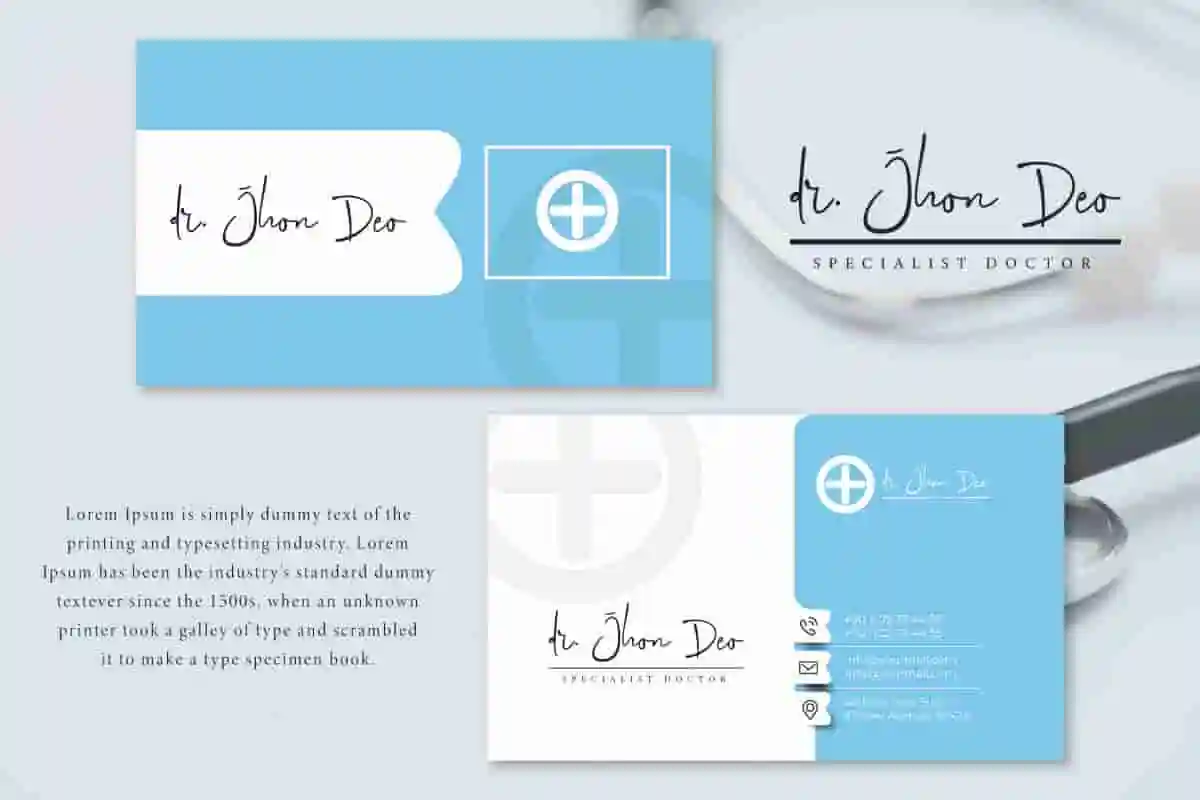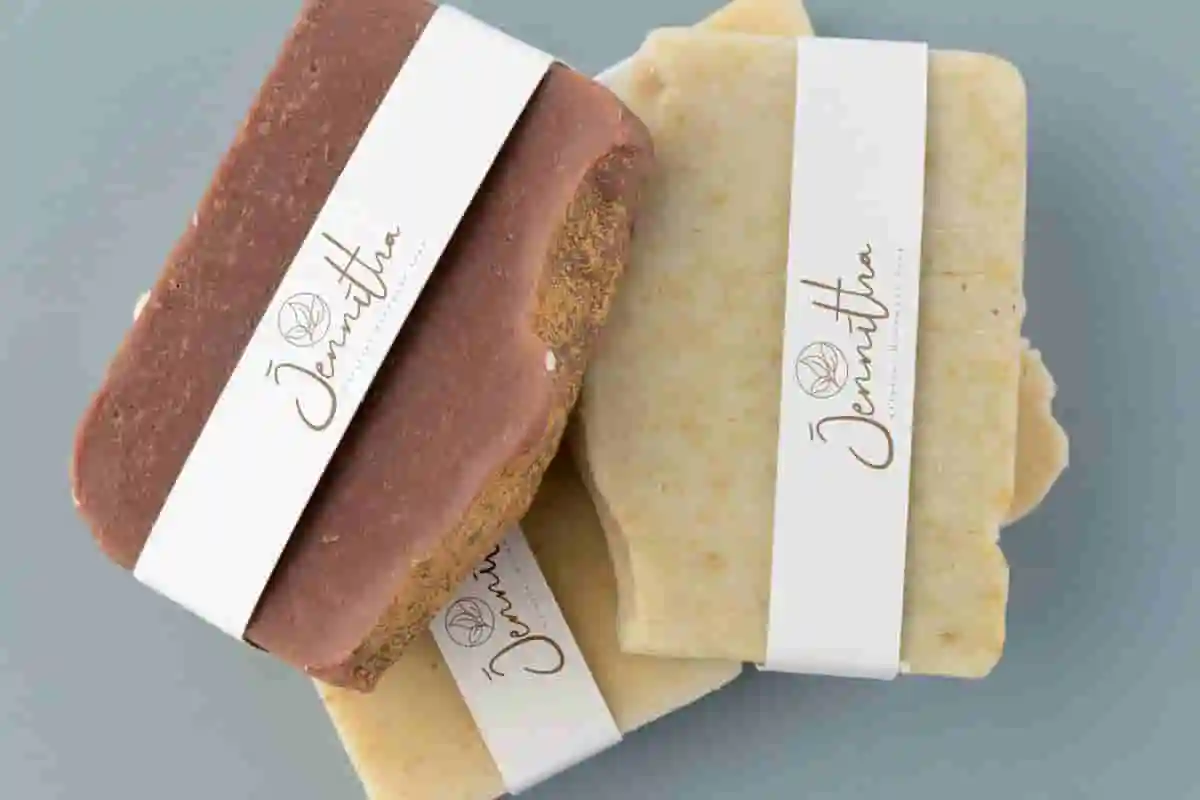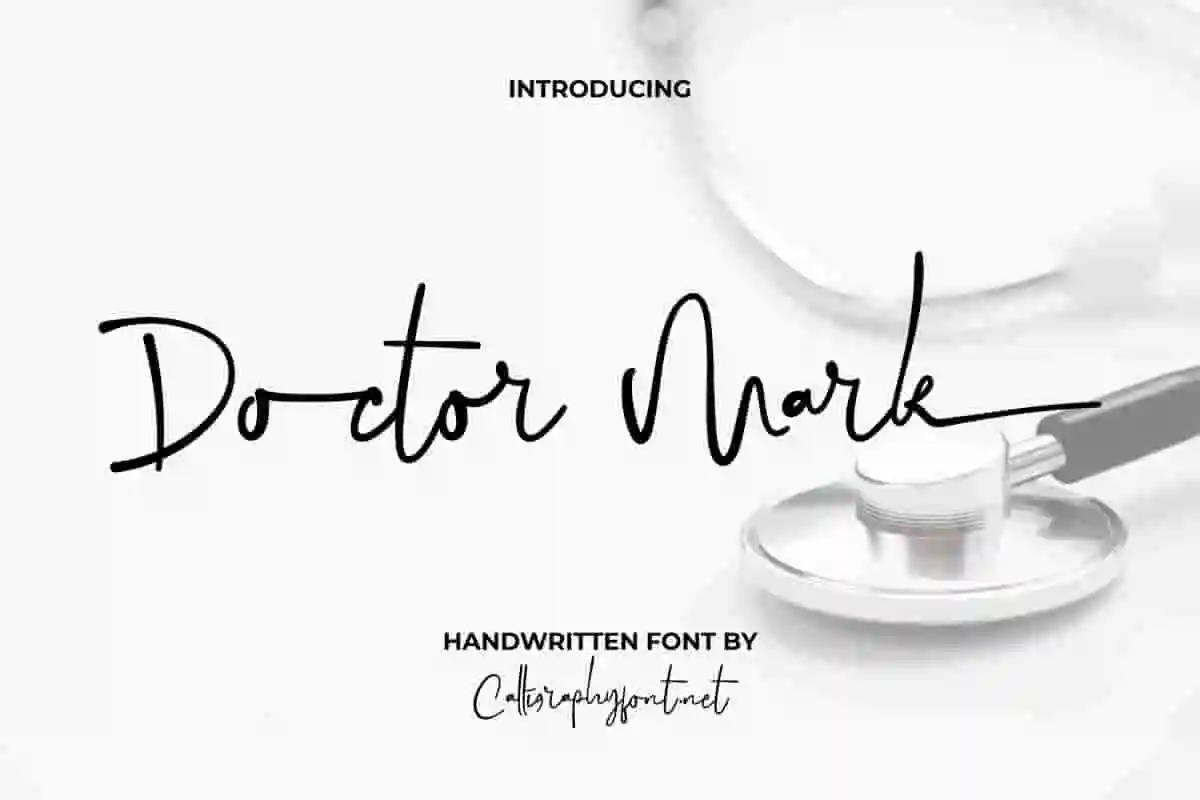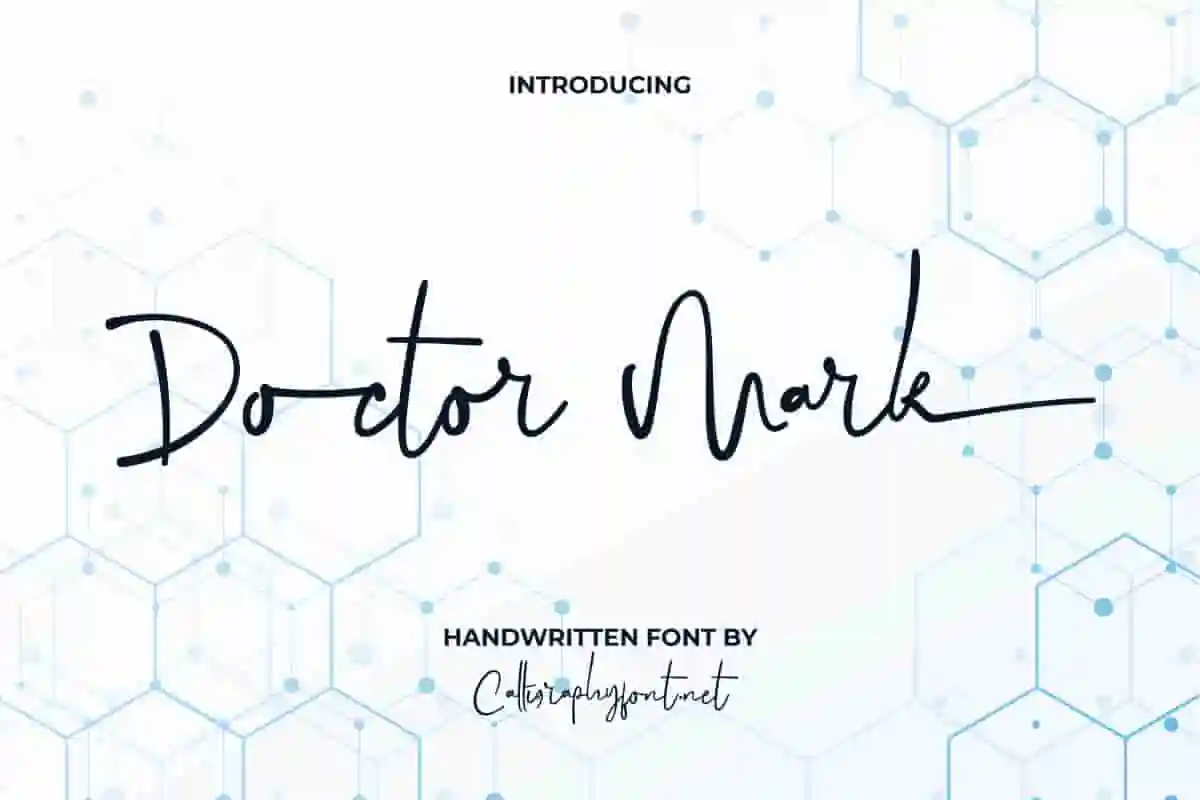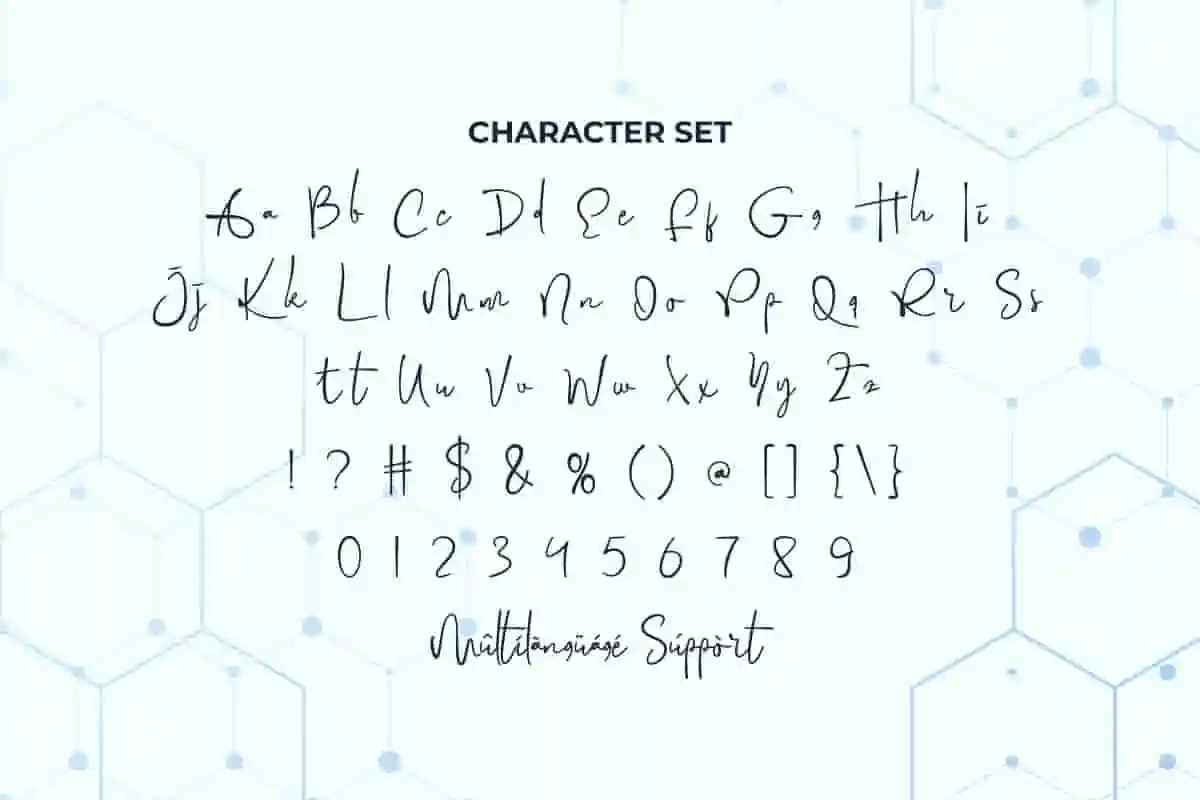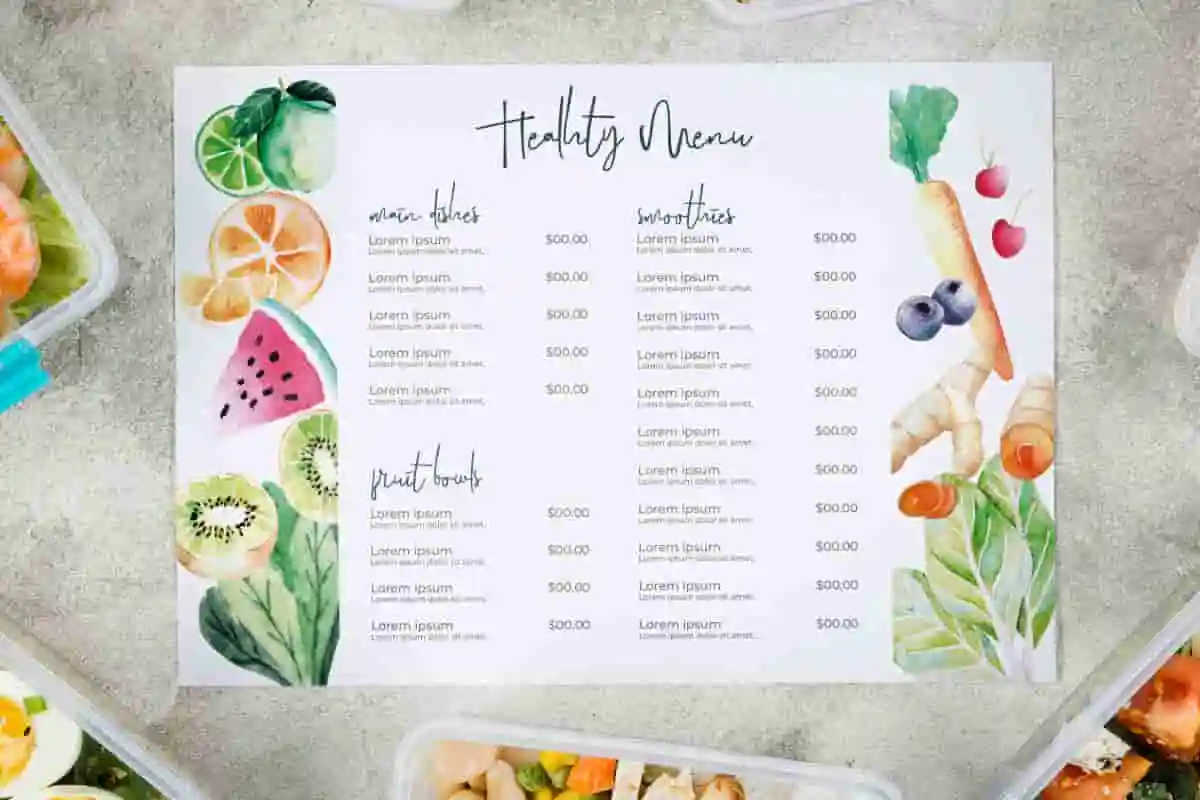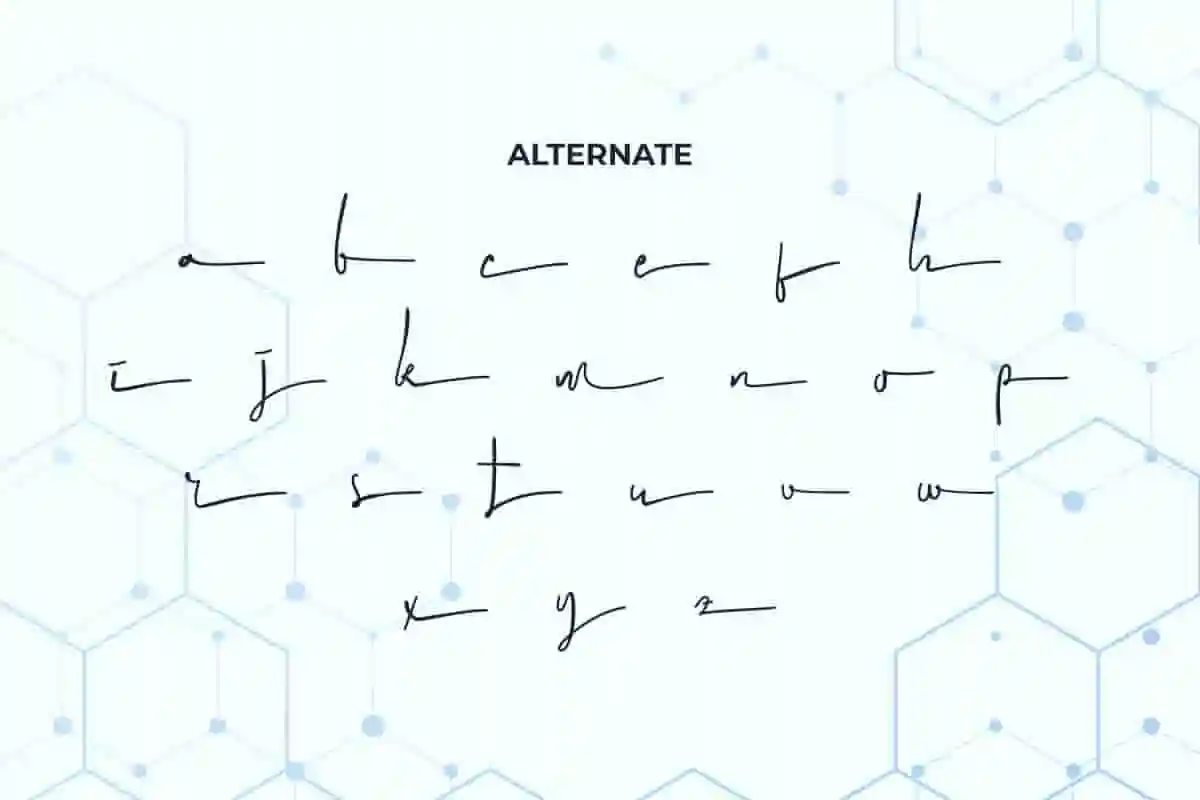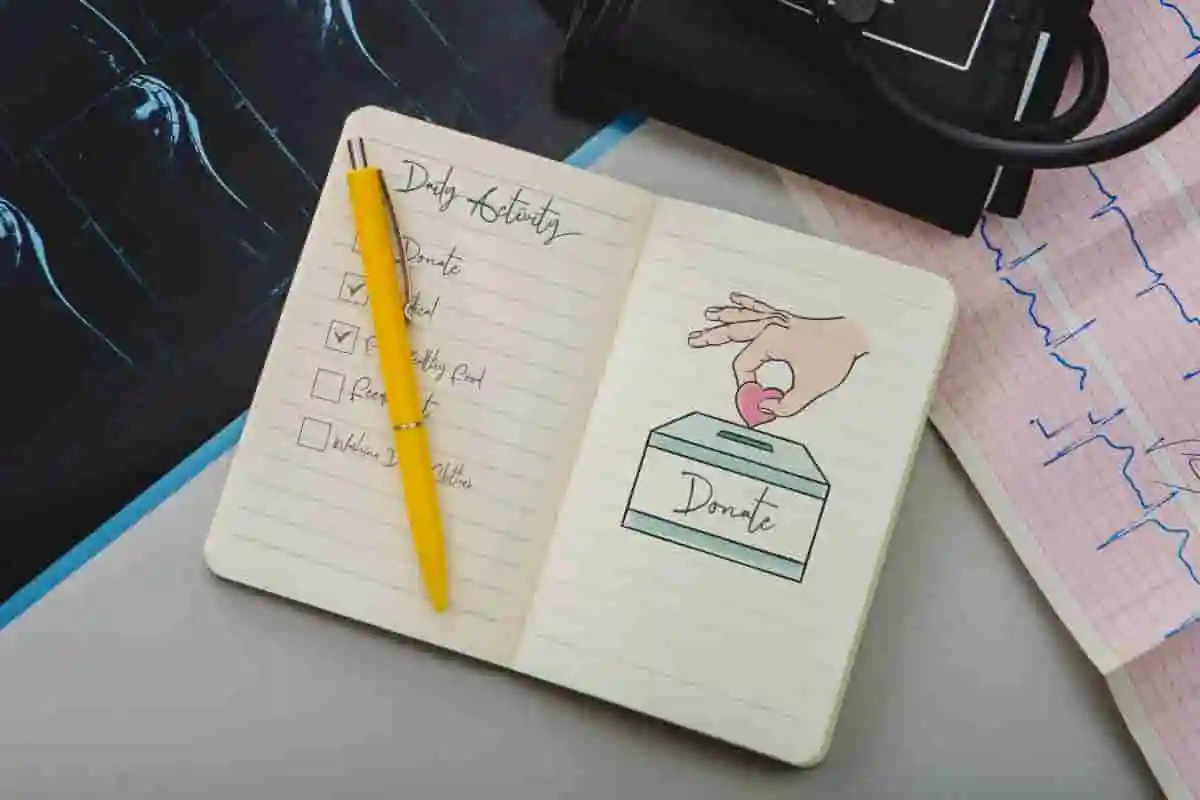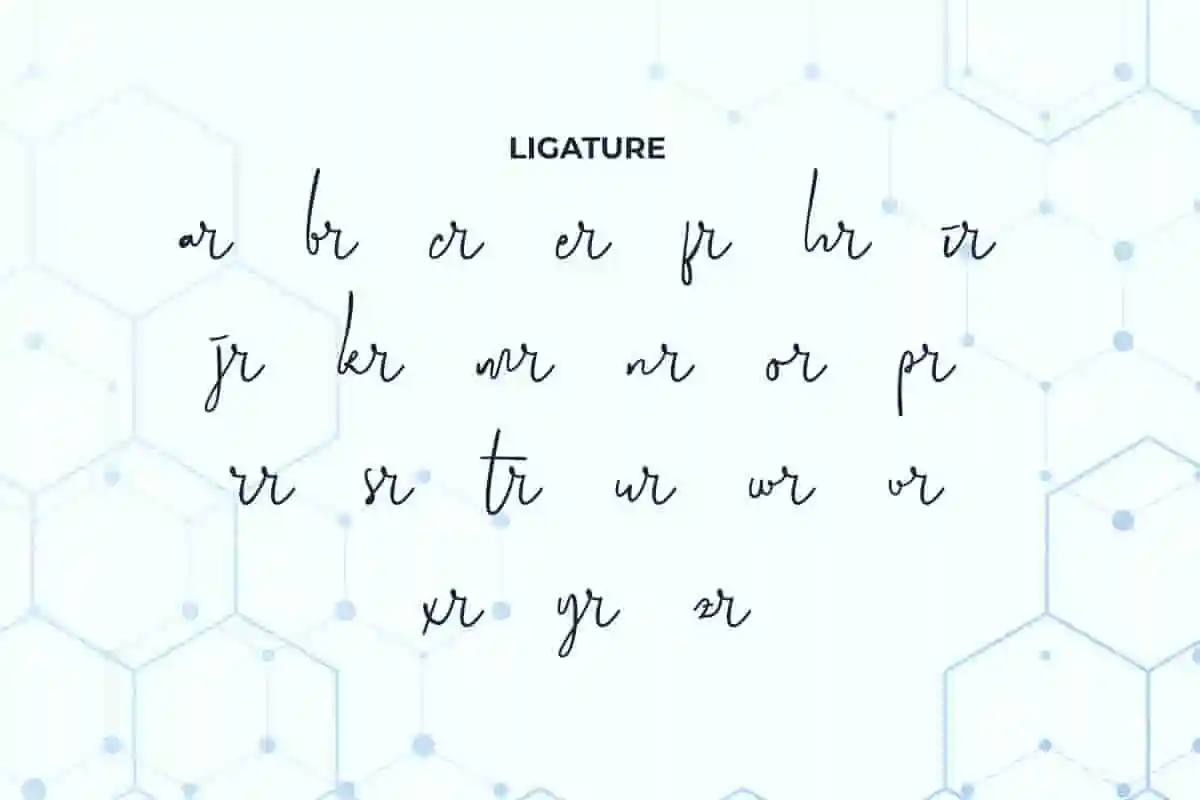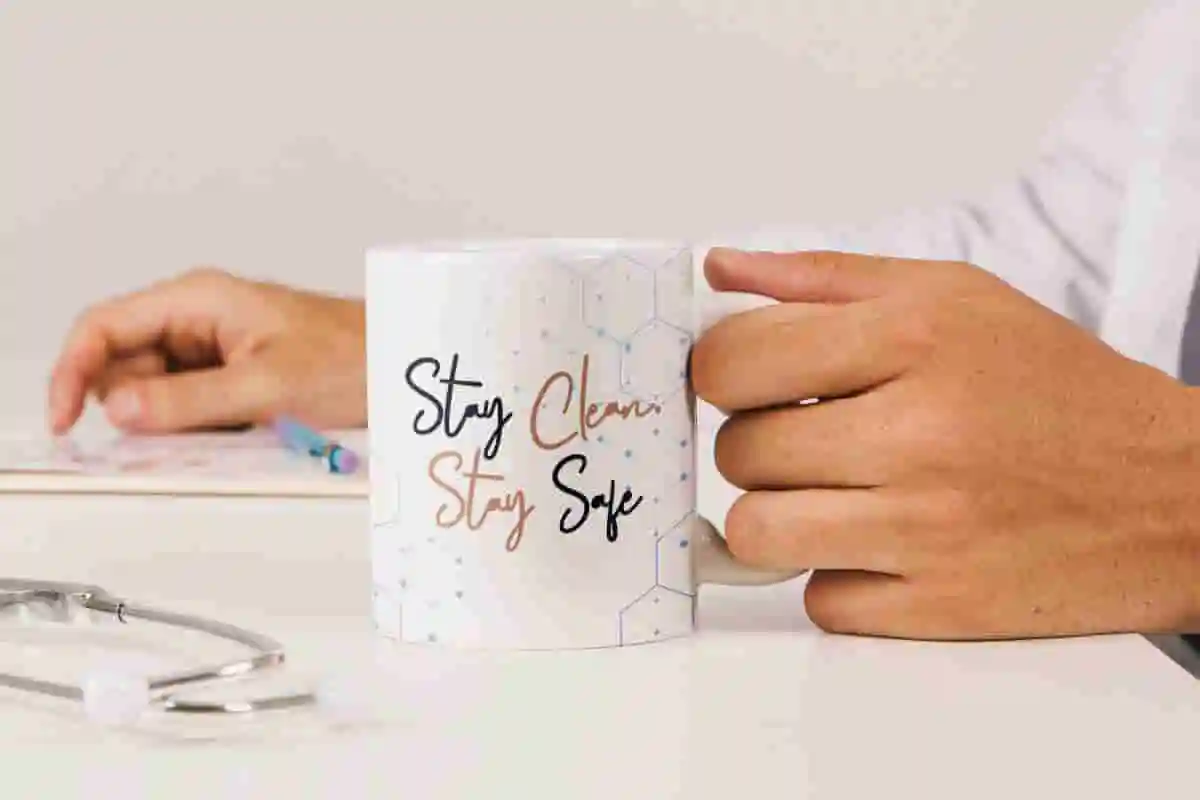
Doctor Mark Handwriting Font
Doctor Mark Font is a beautiful handwriting font with that brings a professional touch to any design created and would be perfect for business card, clinic, homeware, labels, menu, restaurant, school, website, wedding invitation, or simply use it in your background writing.
Doctor Mark Font is a classy handwritten font inspired by beautiful signature writing, created by CalligraphyFonts. This irregular bold and thin font is perfect for your creative projects, such as: brand logo, business card, invitation, label, magazine catalog, menu, custom design, quote, stationery, title, website, and anything that requires an eye catching handwriting look.
Looking for a font that captures the warmth and charm of real handwriting? Meet Doctor Mark Handwriting Font, a beautifully crafted typeface designed to bring a personal and approachable touch to any project. With its smooth curves, natural strokes, and clean readability, this font is perfect for creating designs that feel friendly, authentic, and unique.
Whether you’re designing branding materials, social media graphics, product packaging, greeting cards, or invitations, Doctor Mark Font adds a handwritten flair that instantly connects with your audience. Its casual yet professional style makes it versatile—ideal for both digital and print projects.
Doctor Mark Handwriting Font will be perfect for any industry, such as artist, fashion, cosmetic, event planner, florist, homeware, hotel, jewelry, photography, publishing, restaurant, school, spa salon, wedding, writer, etc. Made with care so as to create perfection in writing and add aesthetics to every design made.
Doctor Mark Handwriting Font comes with a full set of Uppercase and Lowercase Basic Characters, Number, a large range of Punctuation and Symbol, Alternate, Ligature, also supports multilingual characters. Ready to use both on Windows machine or Mac with simple installations. It’s tested to work well in the Adobe Apps (Illustrator, Adobe InDesign, Adobe Photoshop) CorelDraw, and others. PUA Encode Characters means you can access all the glyphs and other additional characters easily – Fully accessible without additional design software.